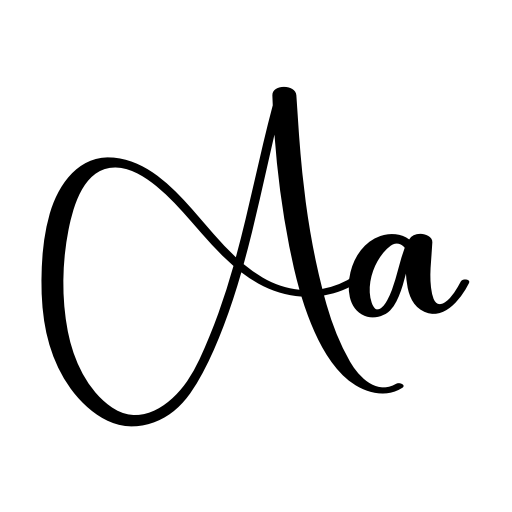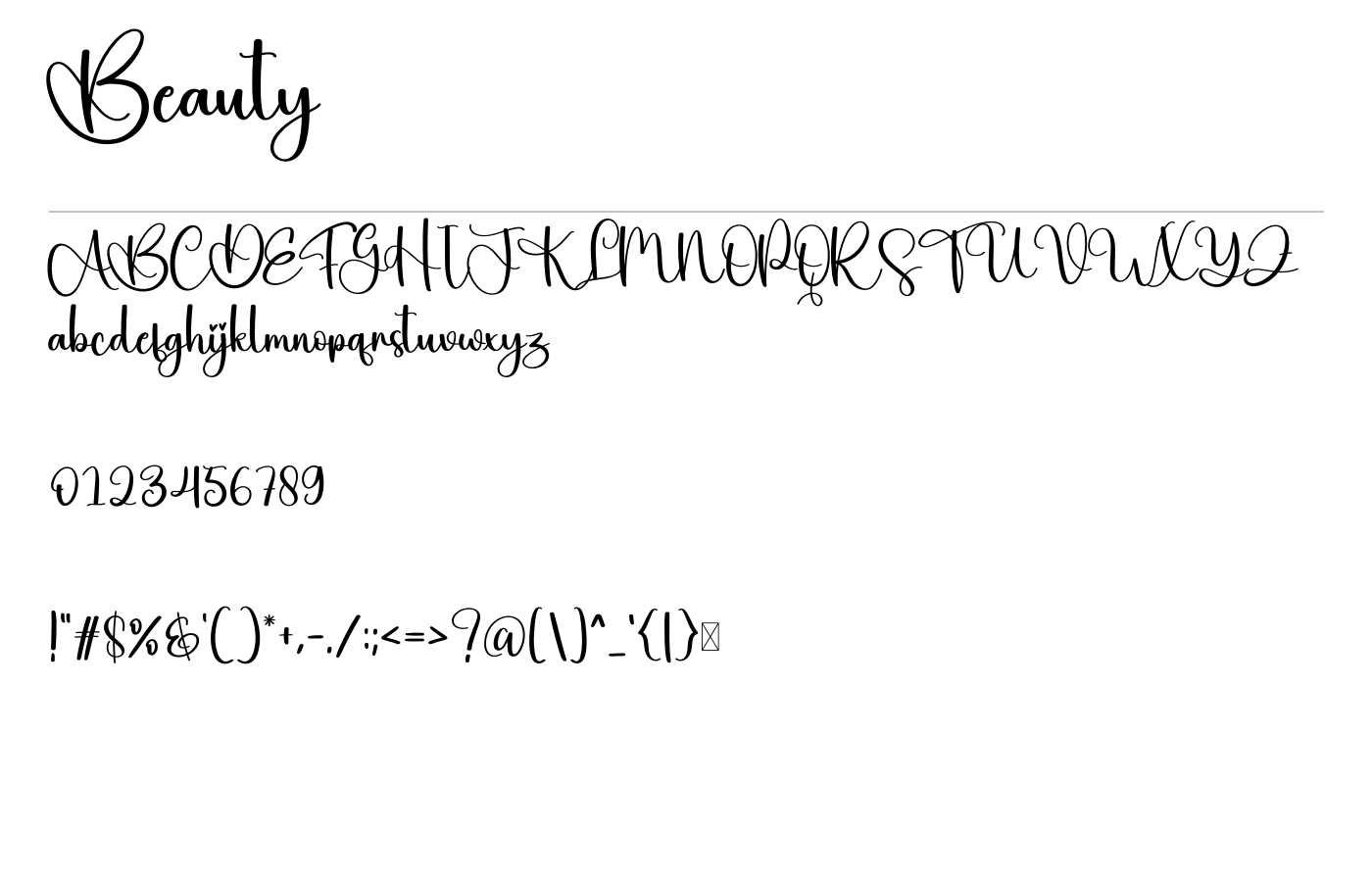
Beauty Font is a delicate, handwritten script featuring graceful, flowing letterforms with a high contrast between thin and slightly thicker strokes. Its elegant, whimsical style makes it perfect for feminine branding, wedding invitations, and beauty-related designs where a charming, personal touch is desired. This font stands out best in headlines and decorative text where its intricate details can shine.
Beauty Font
About Beauty Font
| Font family | Beauty Font |